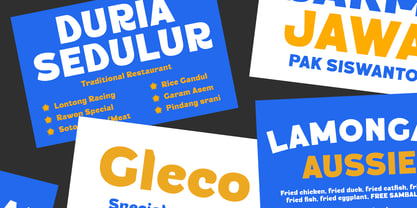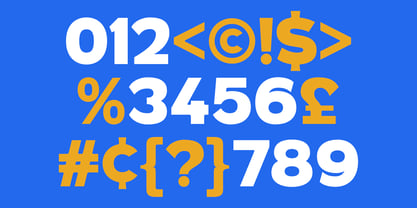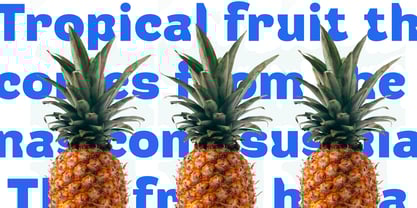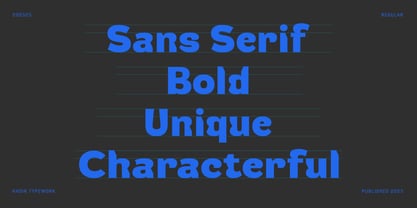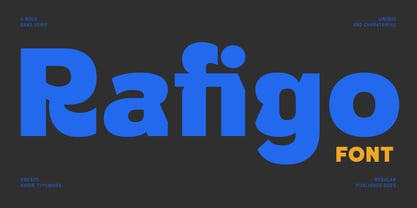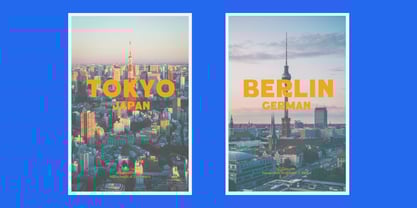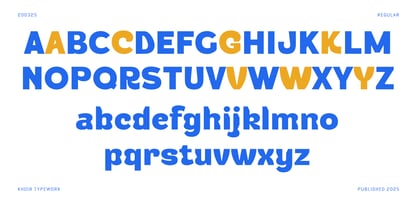
Rafigo
The Rafigo Font Family was designed by Muhammad Romzul Khoir and published by Khoir. Rafigo contains 1 styles. More about this family
With its bold shapes and simple, smooth curves, bold shapes, and bold characters at every corner, this font is impressive and memorable. Its name is Rafigo. It's easy to apply to various branding designs such as logos, posters, covers, business cards, and more. Rafigo Sans Serif Bold Font Uppercase/Lowercase Alternate Font Ligature Font 75+ Language So what are you waiting for? immediately purchase this font, feel free to comment, or send me my PM, Thank you for seeing